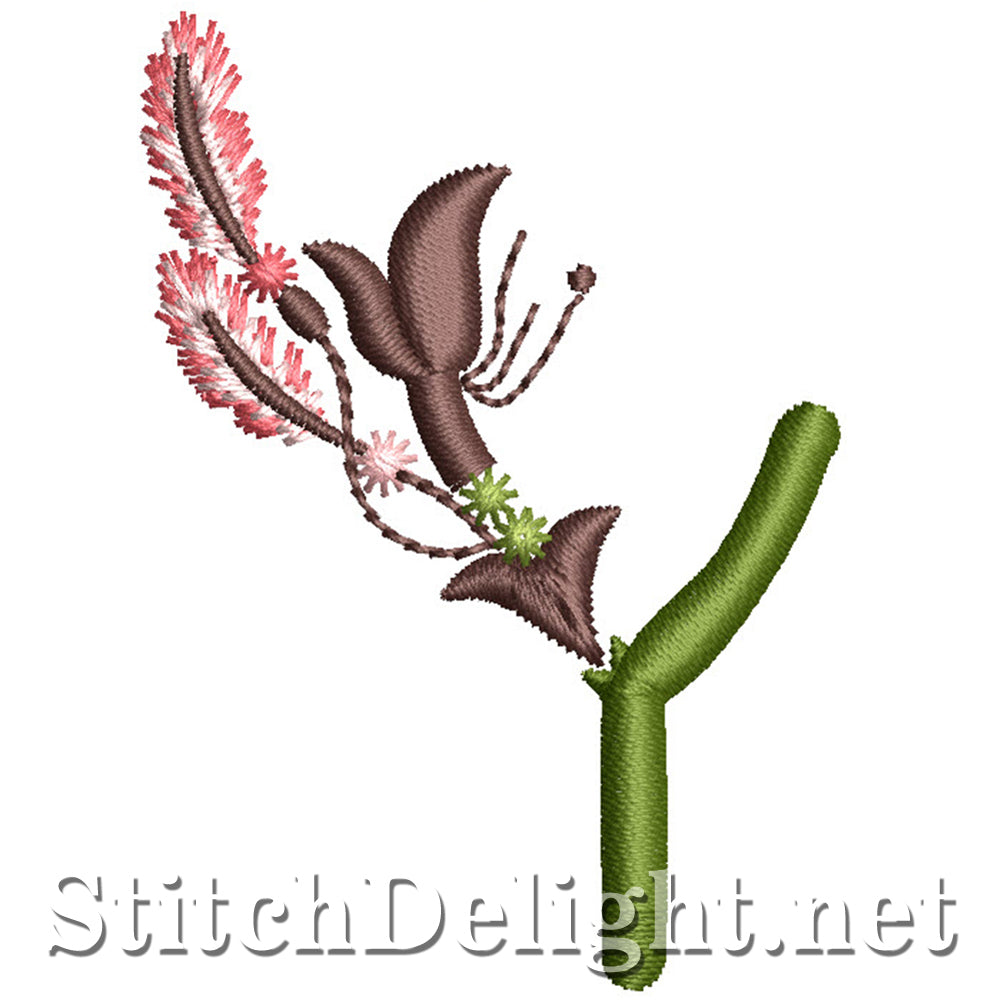
SDS1759 Boho Baby Font Y
This adorable single letter is made for the 4x4 hoop and is perfect for use on garments and linen, will stitch stunningly onto fabric bags too!